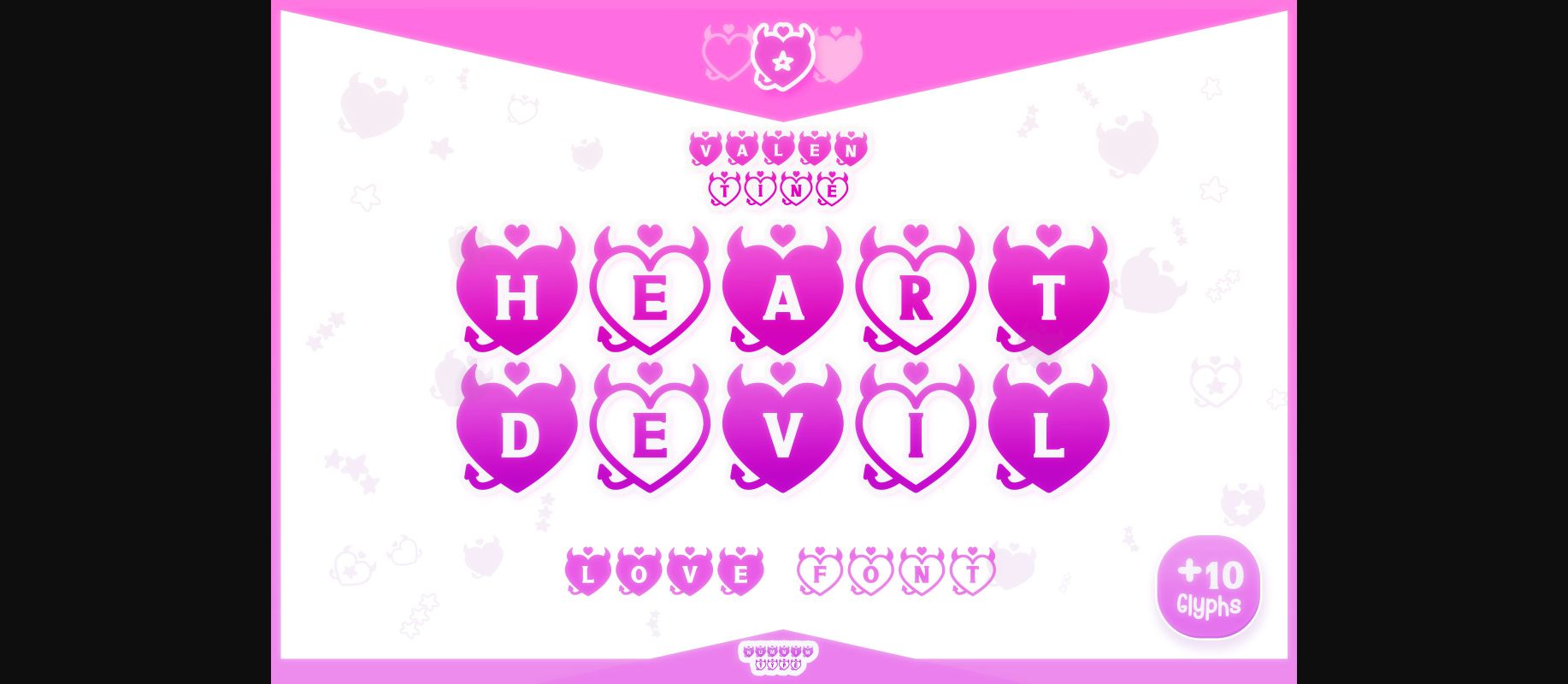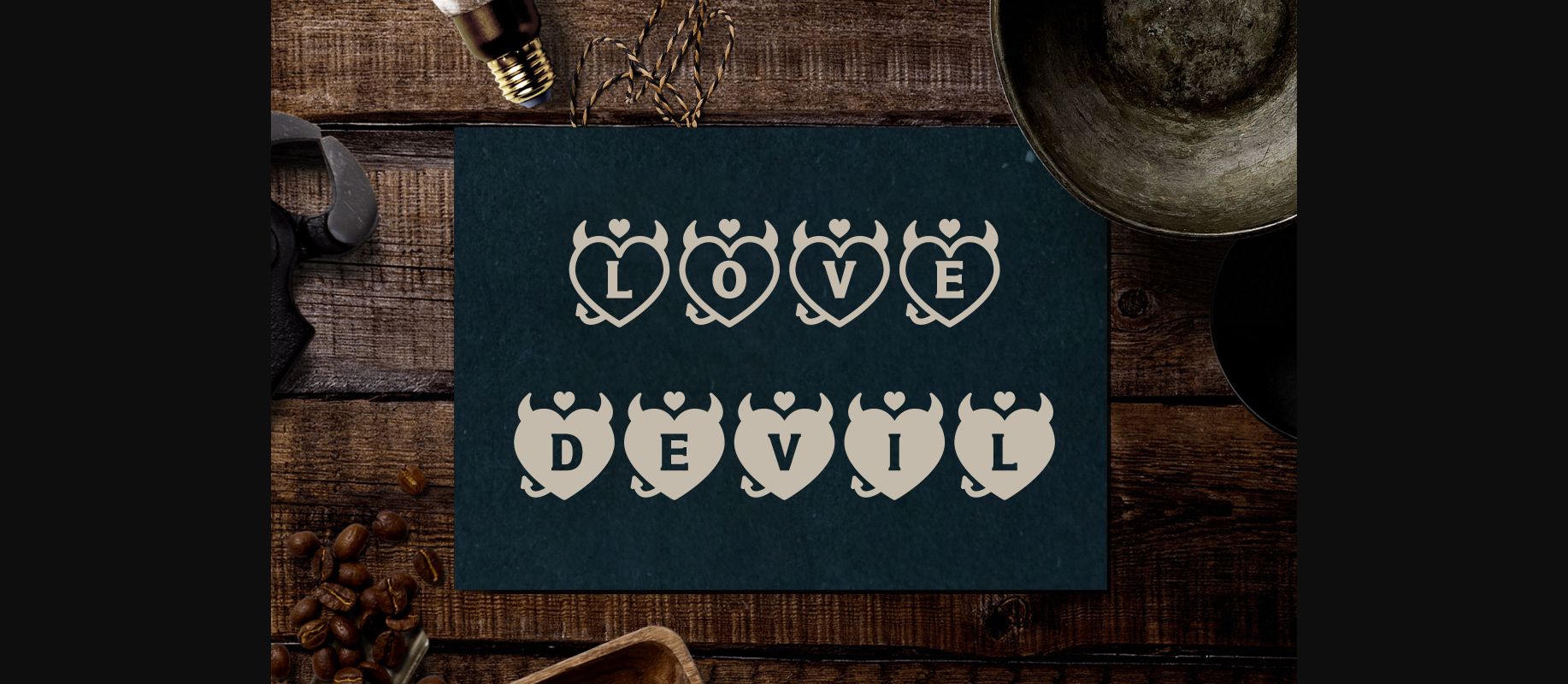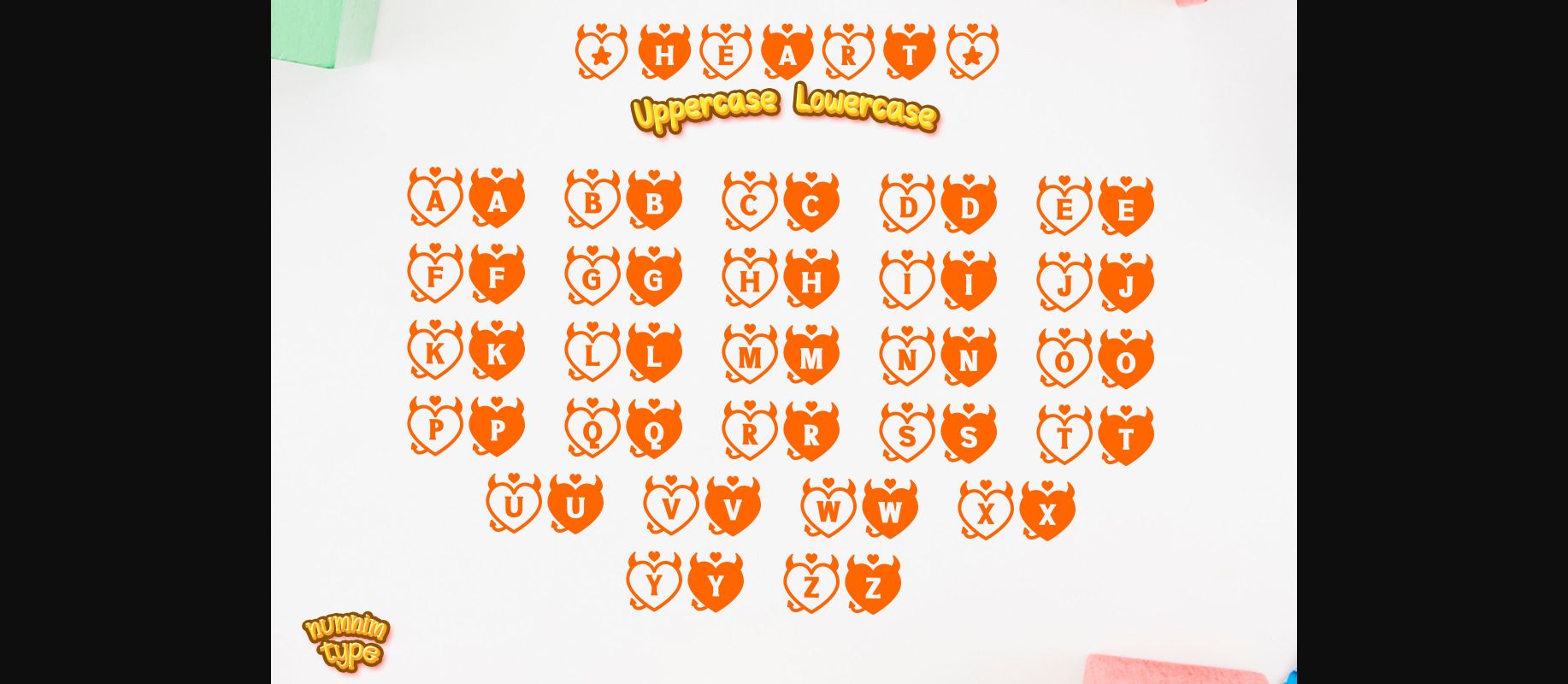
About Heart Devil Font
Heart Blood is a cool and uniquely crafted decorative font. Its fun and playful characters make it the perfect font for stickers, mugs, t-shirts, ornaments, Valentine’s Day’s cards, event invitations, and many more! Use Heart Blood in your creative projects, and it will add a bold touch to any design!